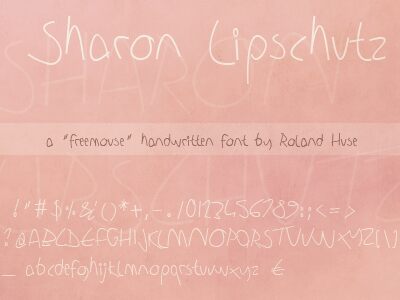
Sharon Lipschutz Handwriting by Roland Huse is a free handwritten font with a very light, unpolished line. Tall, narrow letters lean and stretch at different rates, and several forms open into broad loops or long cross strokes. The uneven proportions make the writing feel quick and personal.
Designers seeking an intimate, informal voice can use it for personal stationery, diary-style publishing, event invitations, and boutique packaging. Directly written letterforms link these otherwise different settings.
Sharon Lipschutz is a font by Roland Huse. The name is a made-up name that appears in J. D. Salinger’s “A Perfect Day for a Bananafish.”